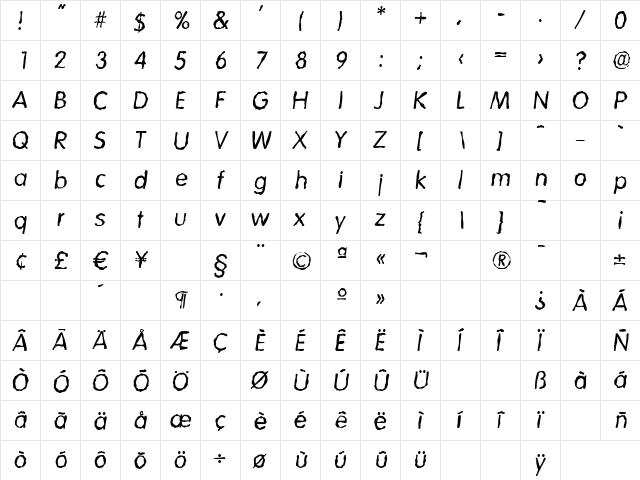
VolkswagenRandom Italic
Design Context for VolkswagenRandom Typeface
VolkswagenRandom takes a measured approach to typography — its balanced proportions and neutral character make it a reliable workhorse for both digital and print work. The slanted form adds forward momentum and visual energy.
Pro Tip: Use VolkswagenRandom for emphasis, pull quotes, and subheadings where its slanted energy can add rhythm to the layout.